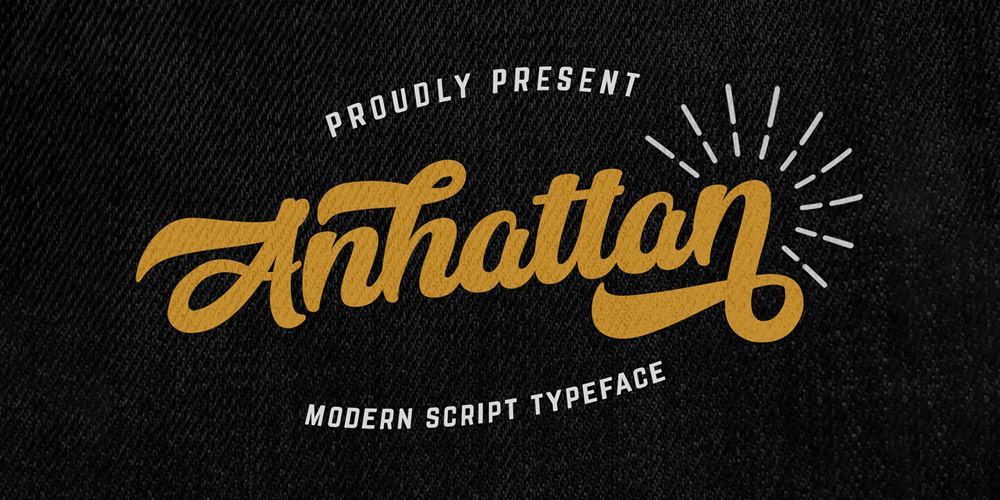
Anhattan
Anhattan font
Anhattan Font Family was designed by Virgiawan Listanto and published by Stringlabs Creative Studio. Anhattan contains 1 styles and family package options. Anhattan is a nostlagic retro script with a fun feel. Get inspired by its vintage aesthetic! This is a beautiful combination of timeless elegance and authentic calligraphy. It features an incredibly classic style, while still keeping a friendly feel. Anhattan is the perfect font for making original and outstanding designs.